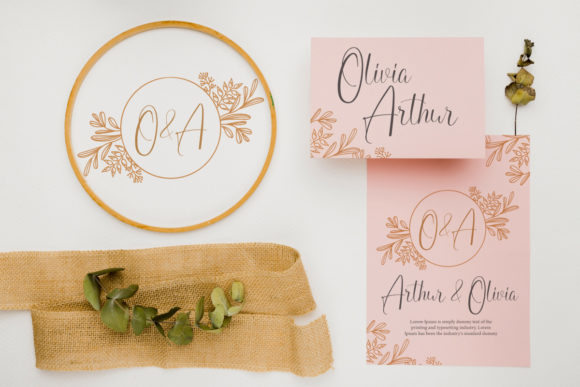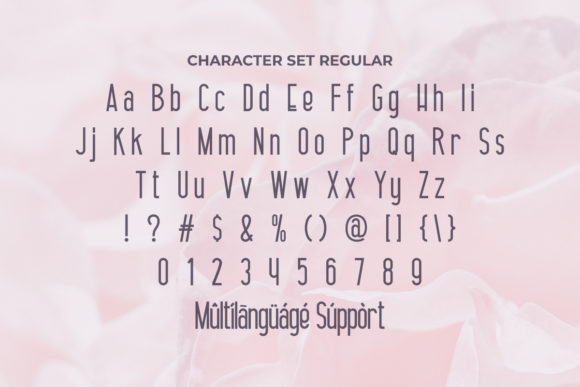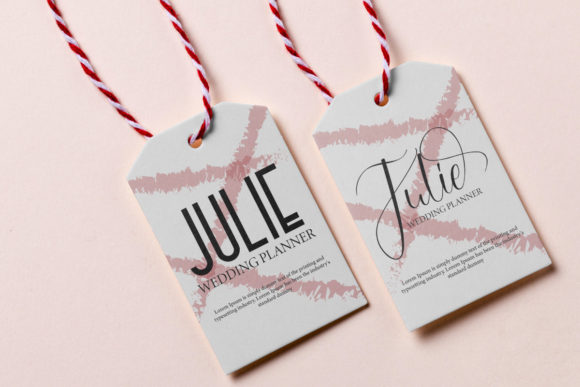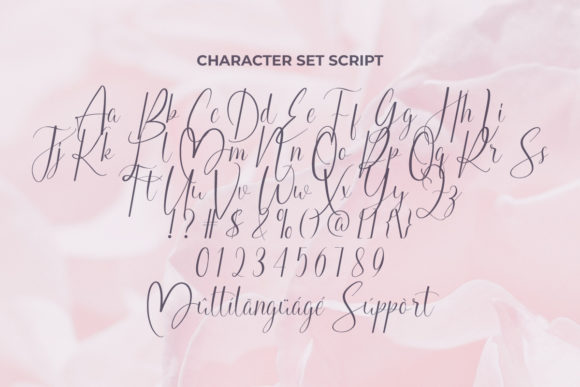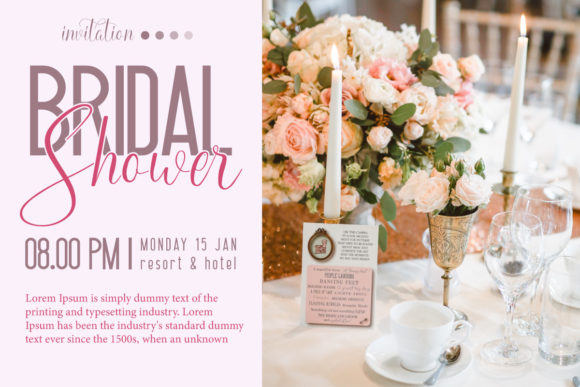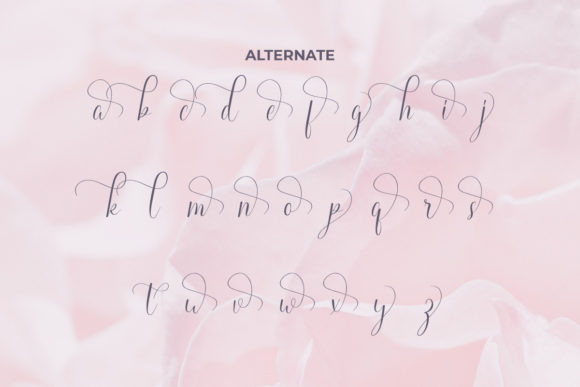
Introducing Happy Married Font: The Perfect Pairing for Your Crafts
Are you a designer or crafter looking for a unique and stylish font to add a touch of elegance and whimsy to your projects? Look no further than the Happy Married Font, a delightful duo of fonts designed to complement each other perfectly. In this article, we’ll dive into the features and benefits of this charming font, and explore how it can elevate your crafts to the next level.
A Perfect Pairing: Two Fonts in One
The Happy Married Font consists of two carefully crafted fonts that work in harmony to create a cohesive and visually appealing look. Whether used together or separately, these fonts are ideal for adding a chic and cheery touch to your crafts, from invitations and greeting cards to scrapbooking and DIY projects.
One of the standout features of the Happy Married Font is its versatility. The two fonts can be used in a variety of ways, from pairing them together for a cohesive look to using them separately to create a contrasting effect. This flexibility makes it easy to experiment and find the perfect combination to suit your project’s needs.
The Happy Married Font is PUA (Private Use Area) encoded, which means that accessing all the glyphs and swashes is a breeze. PUA encoding allows designers and crafters to easily access and use the font’s extended character set, including special characters, ligatures, and swashes. This feature makes it simple to add a personal touch to your projects and create unique and eye-catching designs.
With PUA encoding, you can easily access the font’s glyphs and swashes using a character map or font editing software. This means you can effortlessly add flourishes and embellishments to your text, creating a professional and polished look that’s sure to impress.
- Two complementary fonts: Use them together or separately to add a chic and cheery touch to your crafts.
- PUA encoded: Easy access to glyphs and swashes for added flexibility and creativity.
- Perfect for crafts: Ideal for invitations, greeting cards, scrapbooking, DIY projects, and more.
- Versatile: Suitable for a wide range of design styles and applications.
Tips and Inspiration for Using Happy Married Font
So, how can you use the Happy Married Font to elevate your crafts? Here are a few ideas to get you started:
- Create custom invitations: Use the Happy Married Font to design beautiful and unique invitations for weddings, baby showers, and other special occasions.
- Add a personal touch to greeting cards: Use the font’s glyphs and swashes to create one-of-a-kind greeting cards for birthdays, holidays, and more.
- Enhance your scrapbooking projects: Add a touch of elegance and whimsy to your scrapbooking pages with the Happy Married Font.
The Happy Married Font is a delightful duo of fonts that’s sure to bring a touch of joy and elegance to your crafts. With its PUA encoding and versatile design, this font is perfect for designers and crafters looking to add a unique and stylish touch to their projects. Whether you’re creating custom invitations, greeting cards, or scrapbooking pages, the Happy Married Font is the perfect pairing to help you achieve your creative vision.